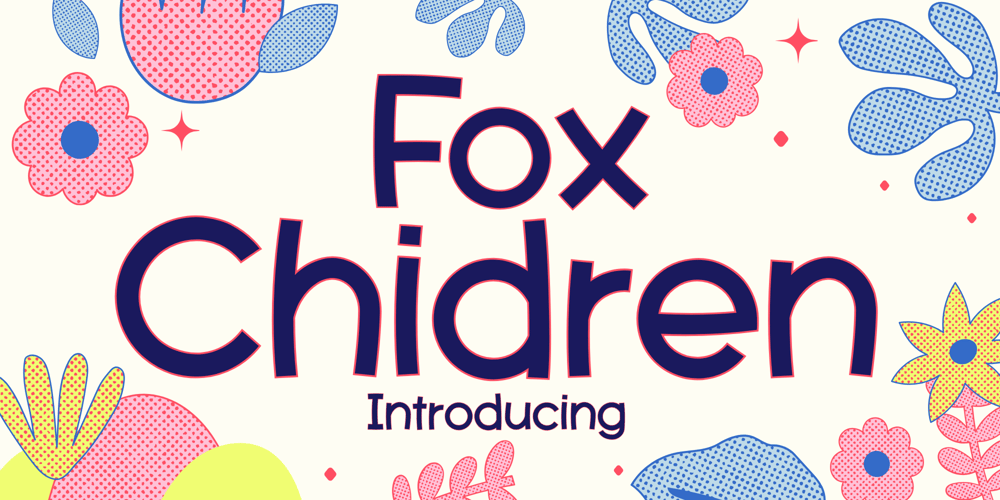
Fox Chidren Font Family was designed by Rattana Rattanawan and published by Fox7. Fox Chidren contains 1 styles and family package options. The “Fox Children” font is a playful and whimsical typeface that would be well-suited for children’s books, playful branding, or decorative purposes. It presents a combination of chunky, rounded letters with a touch of hand-drawn aesthetic, giving it a warm and friendly vibe.